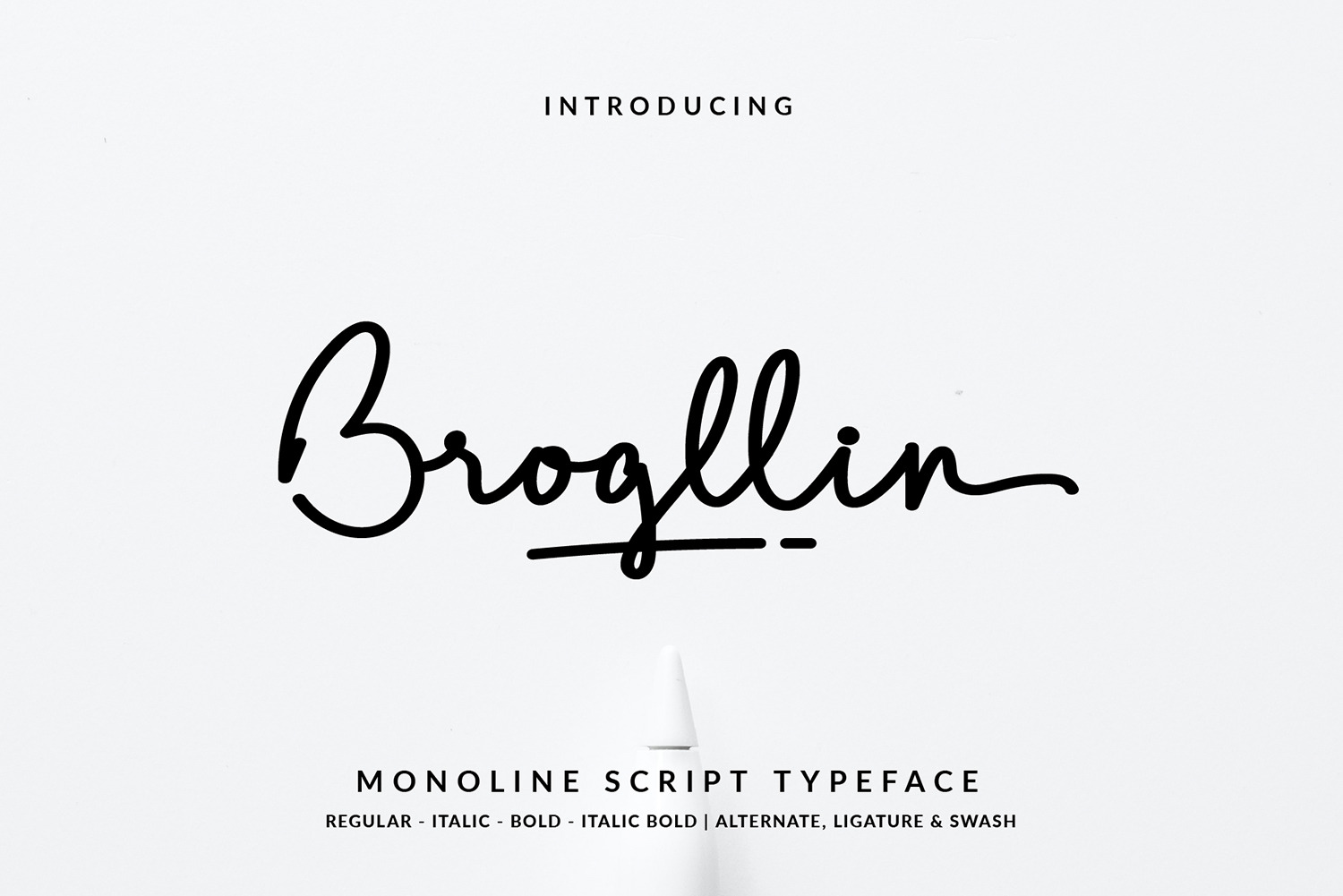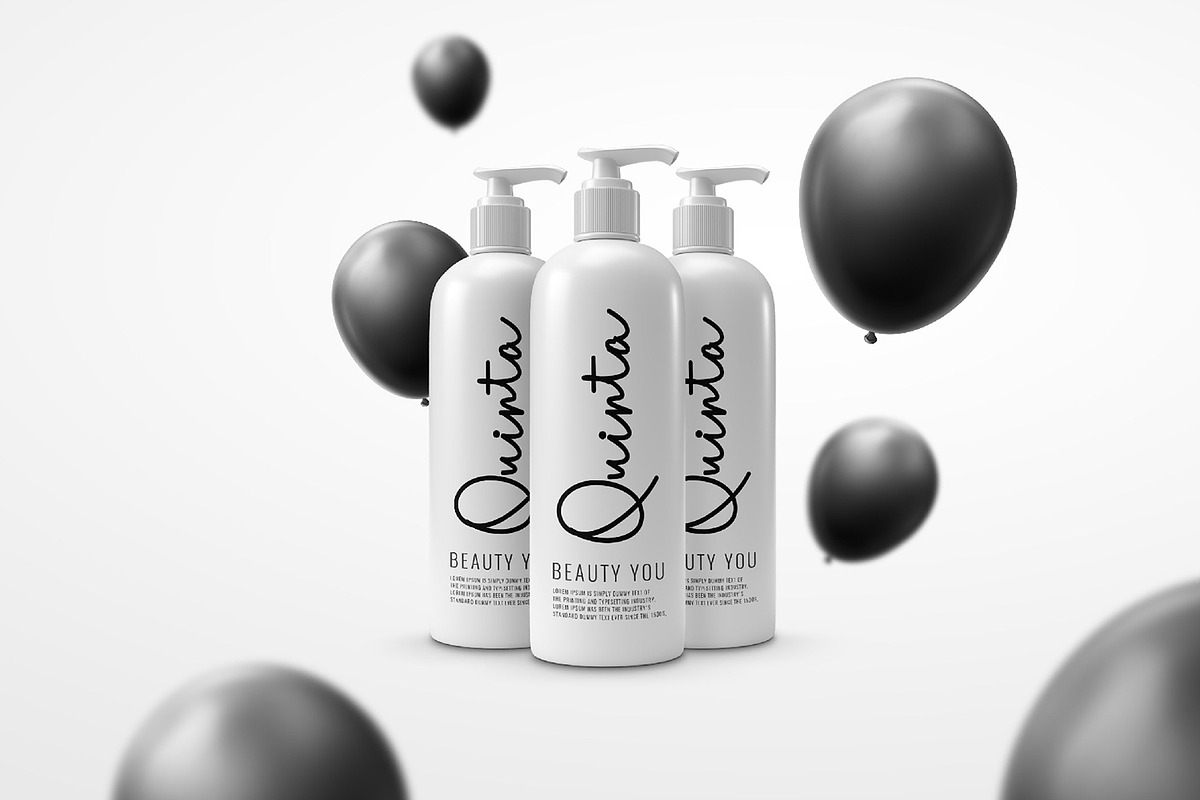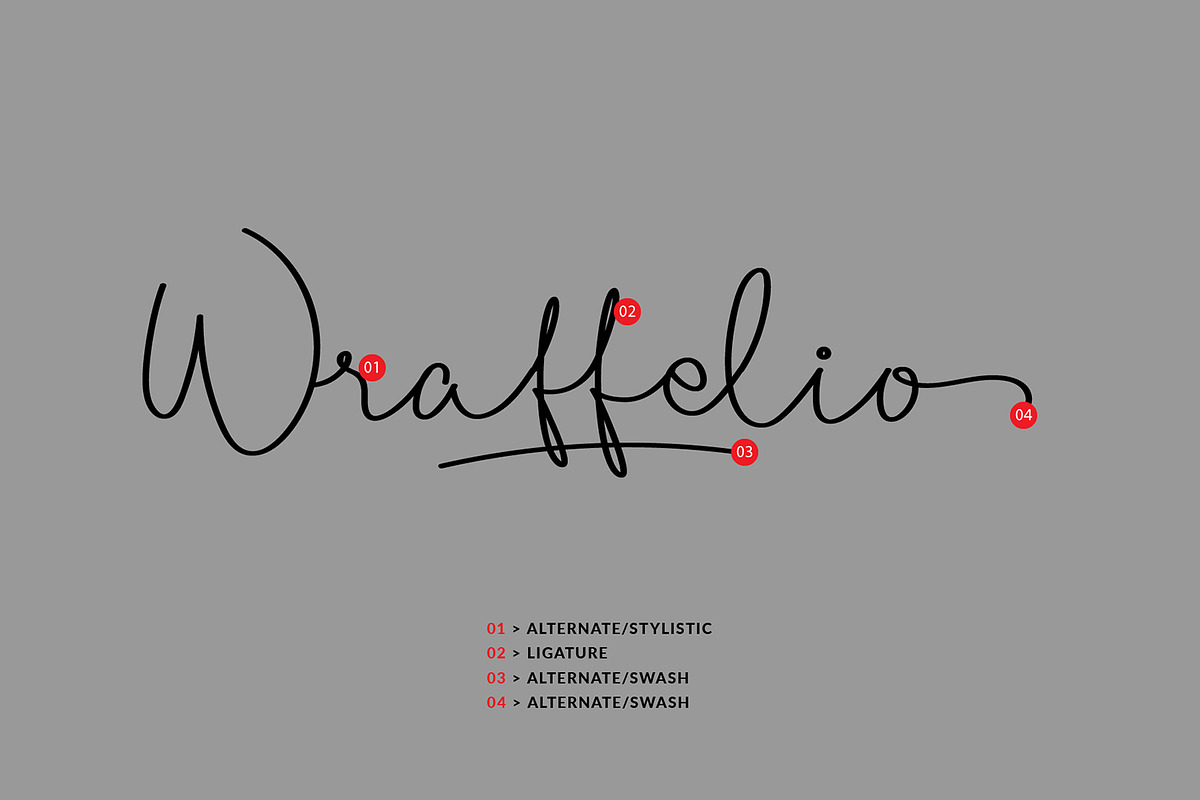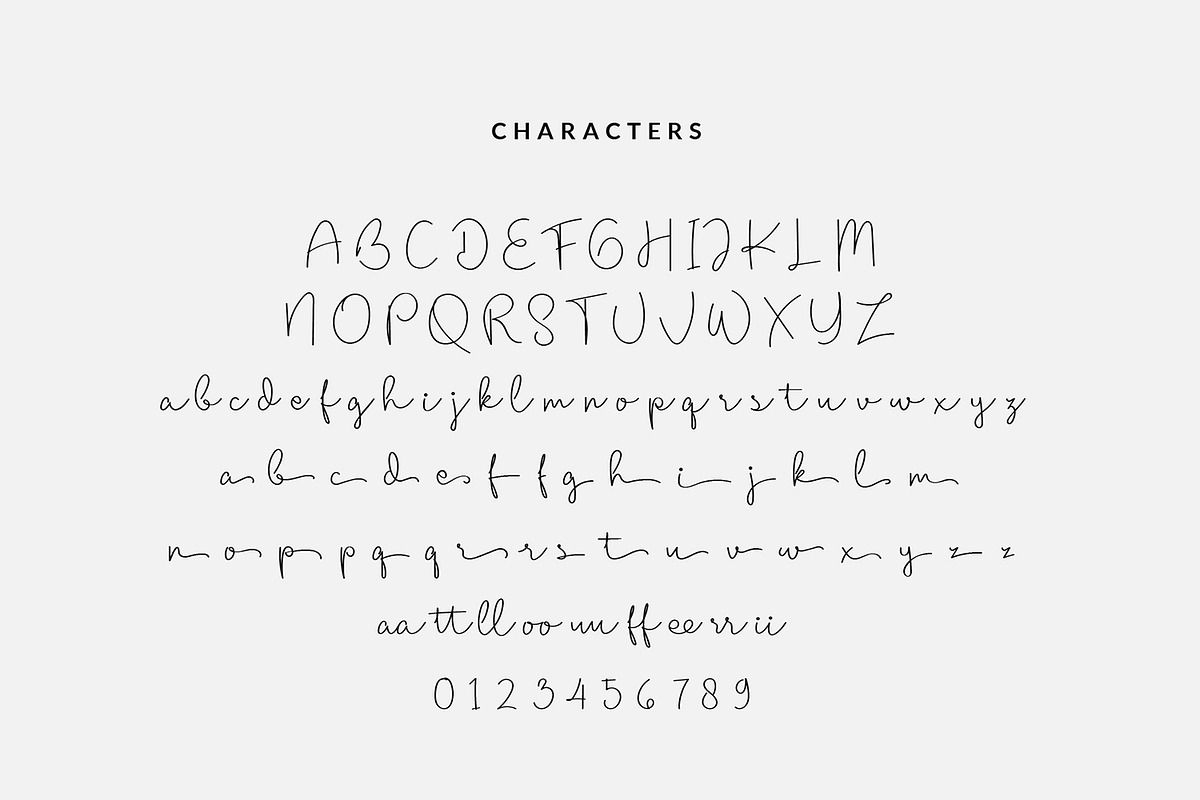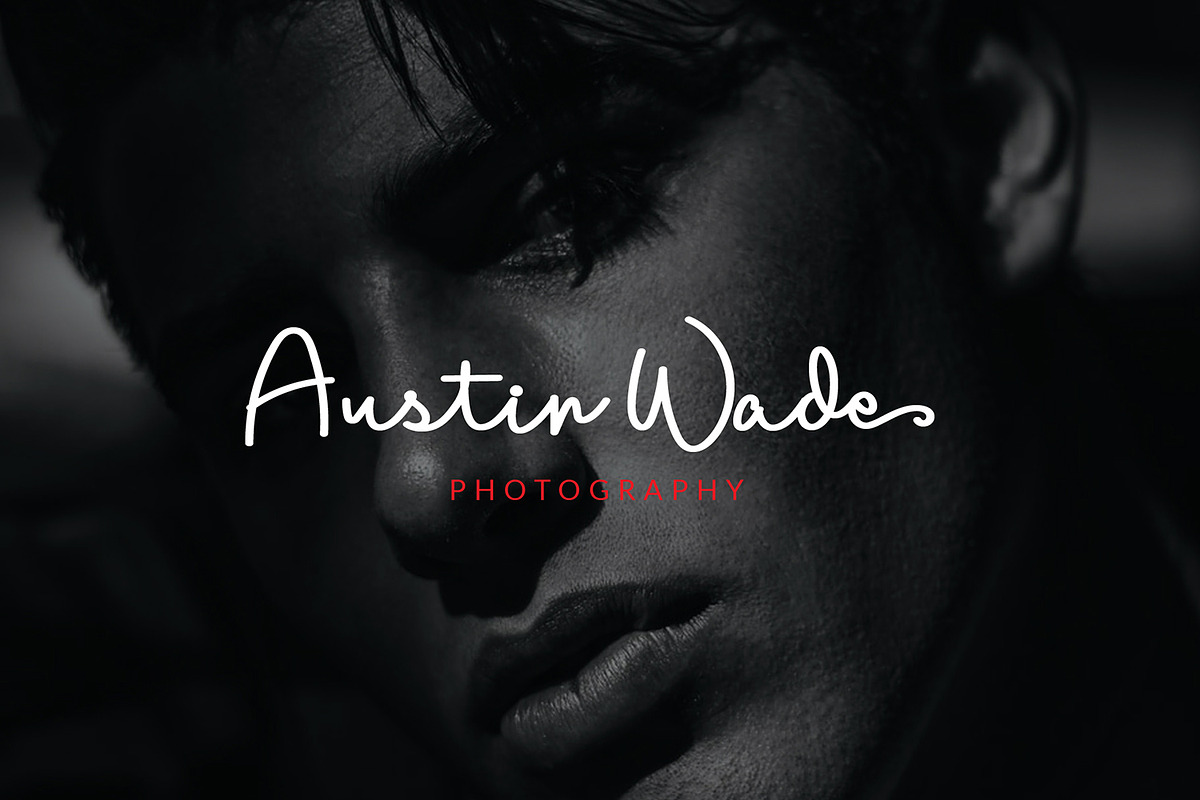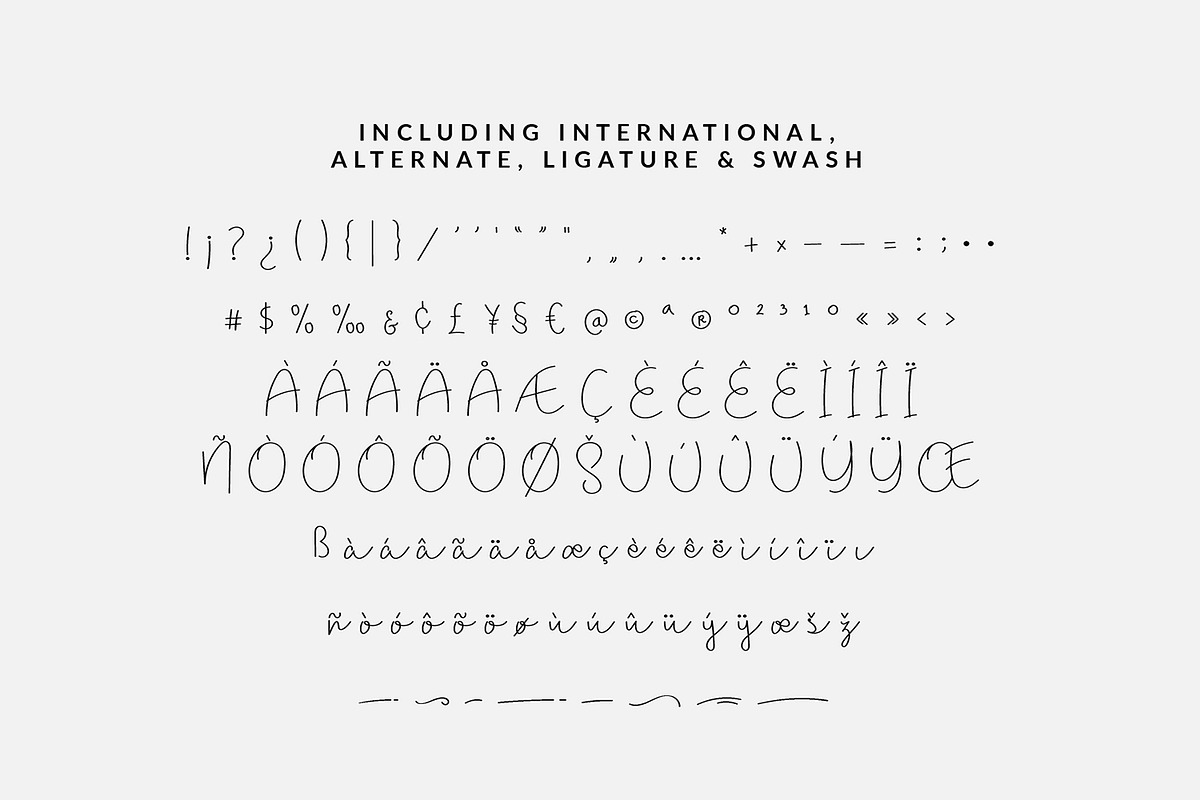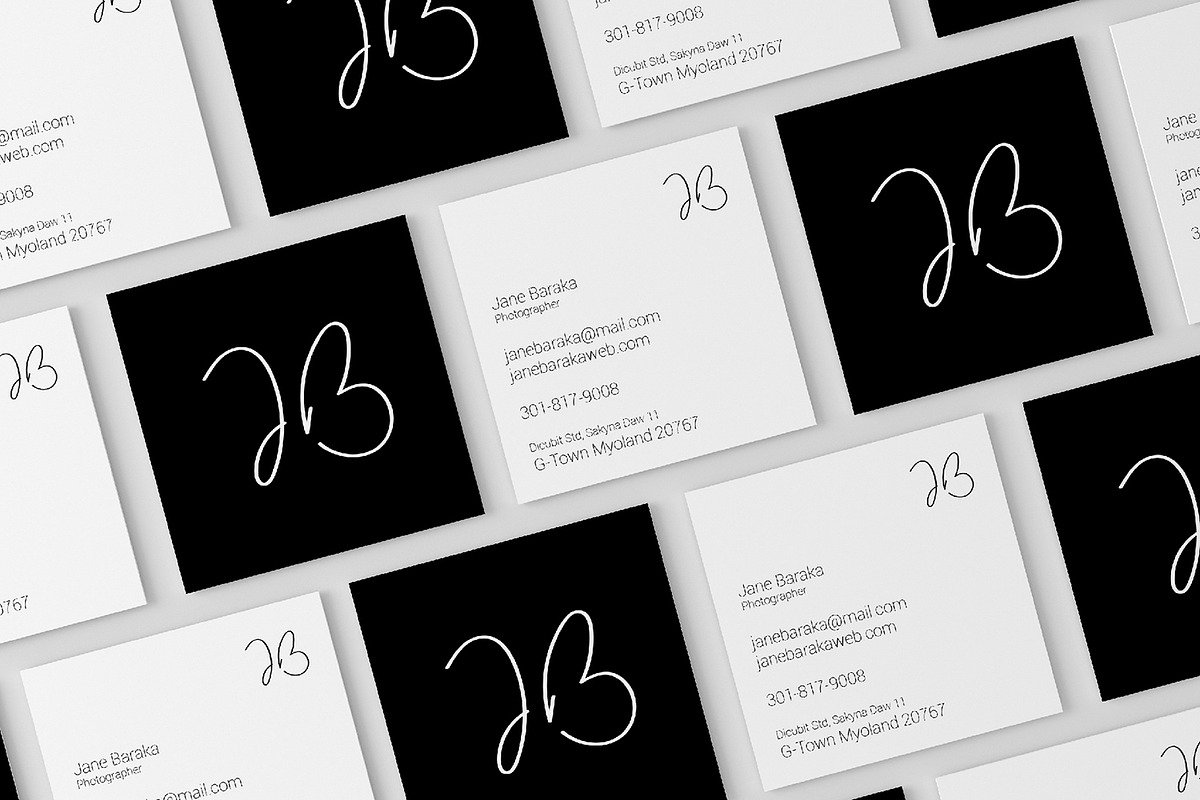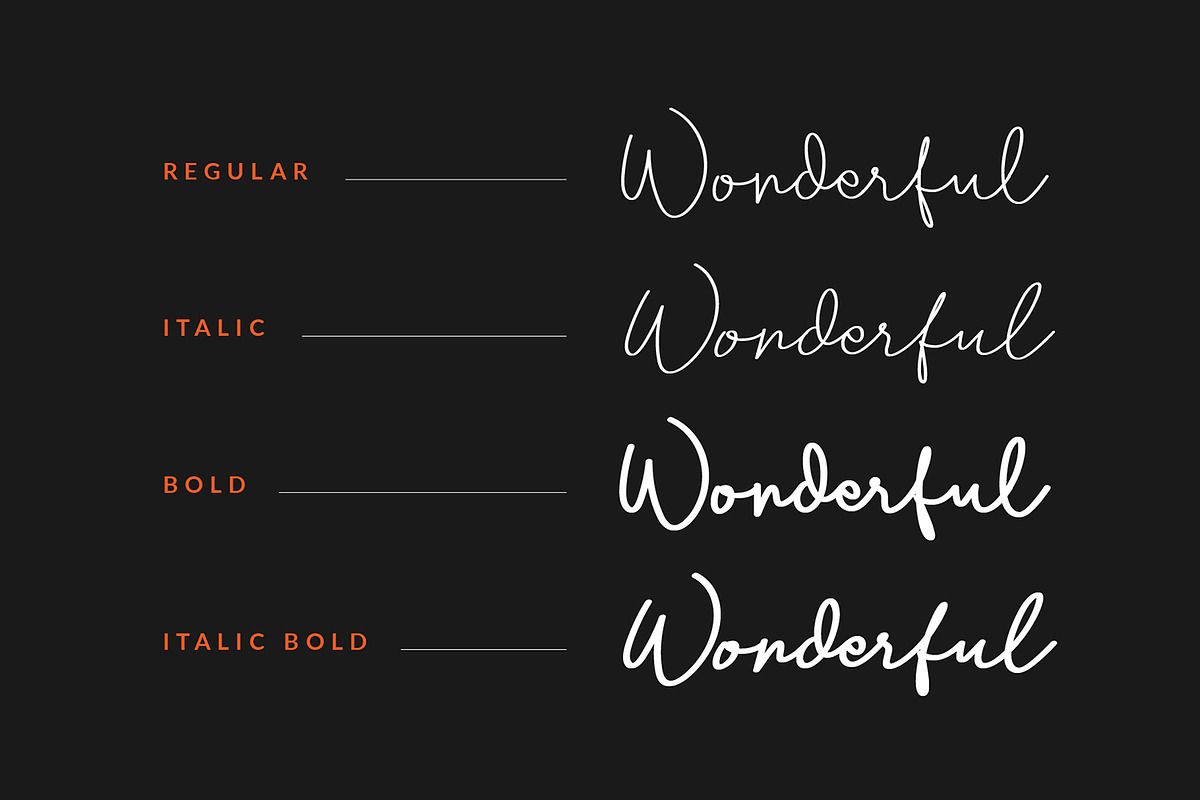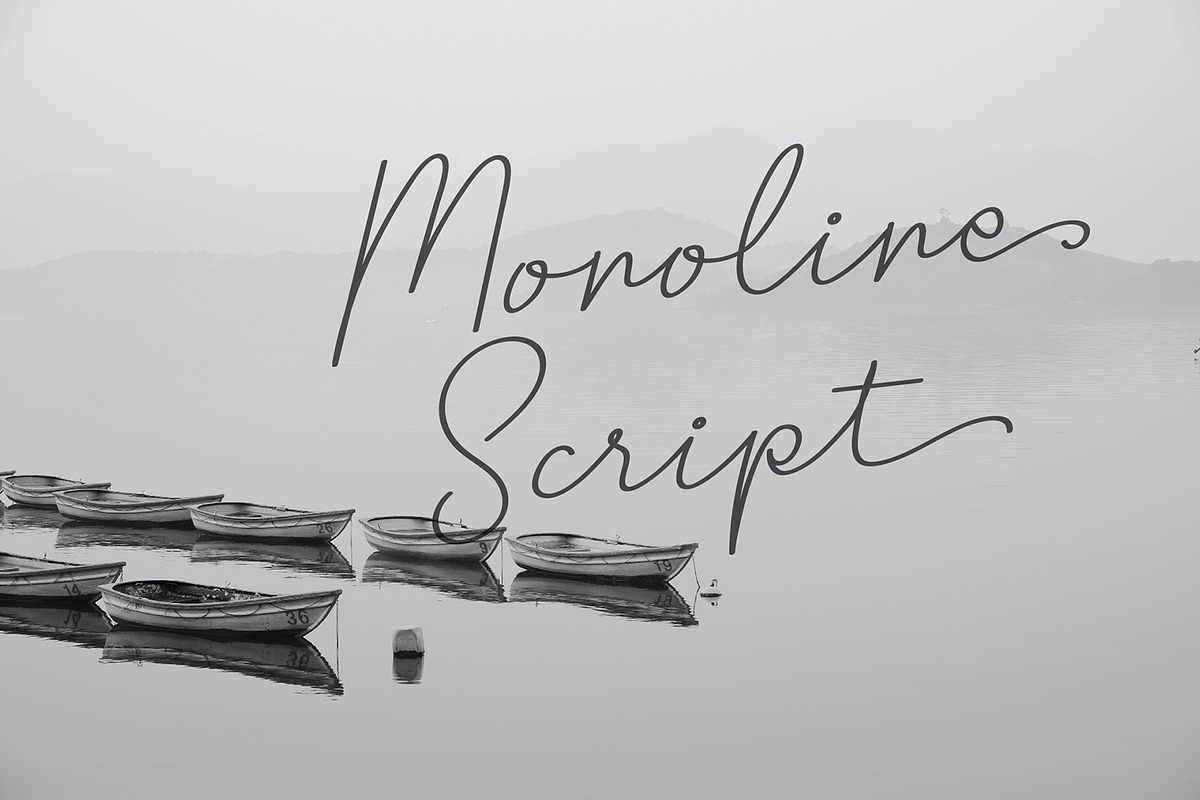
Brogllin Handwritten Monoline Font
Brogllin is a monoline script typeface/font designed with carefully handcrafted. This perfectly made to be applied in logo or branding, stationery, books, packaging, fashion, magazines, t-shirt, greeting or wedding cards, vintage design, novels, labels and many advertising purposes.
- Alternate/stylistic